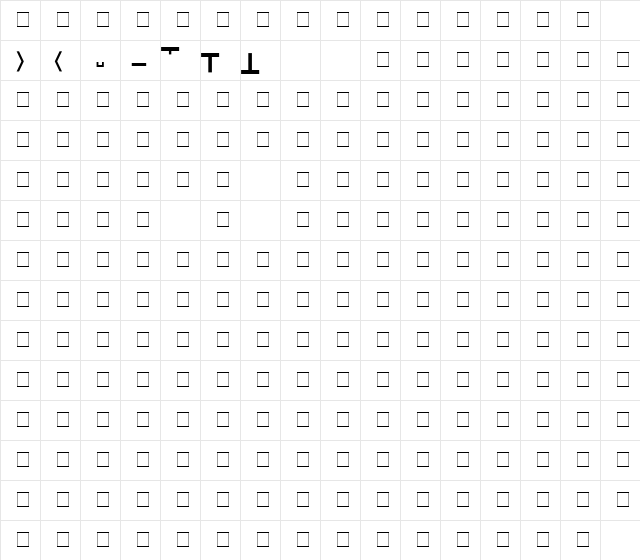
Frame5 Font Regular
Frame5 Font takes a measured approach to typography — its balanced proportions and neutral character make it a reliable workhorse for both digital and print work.